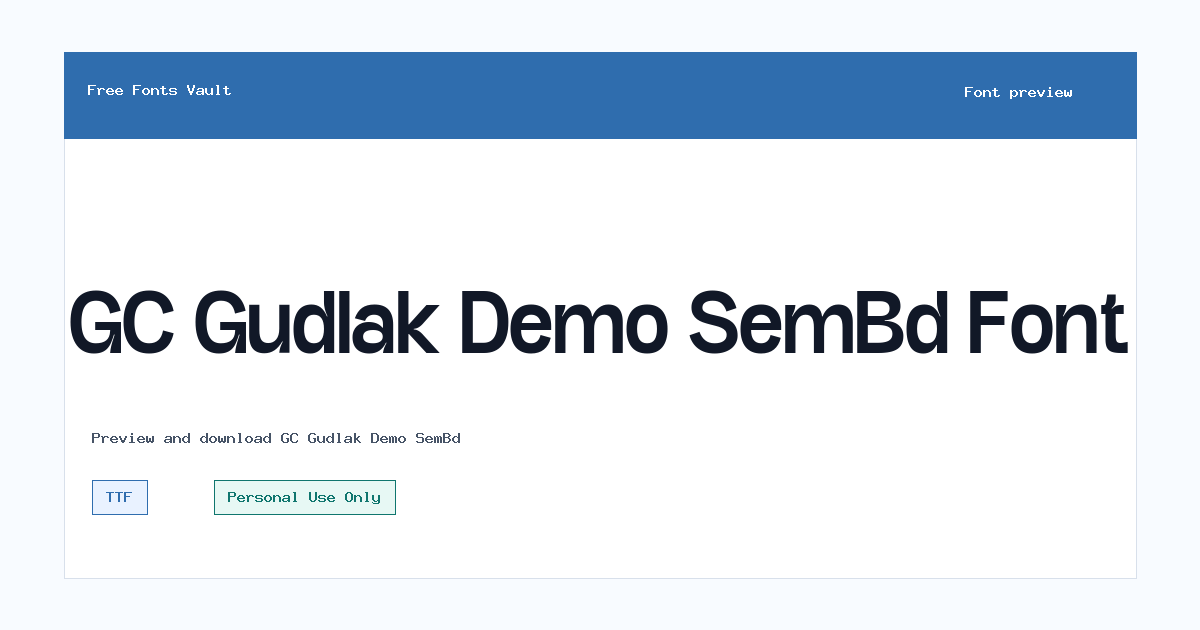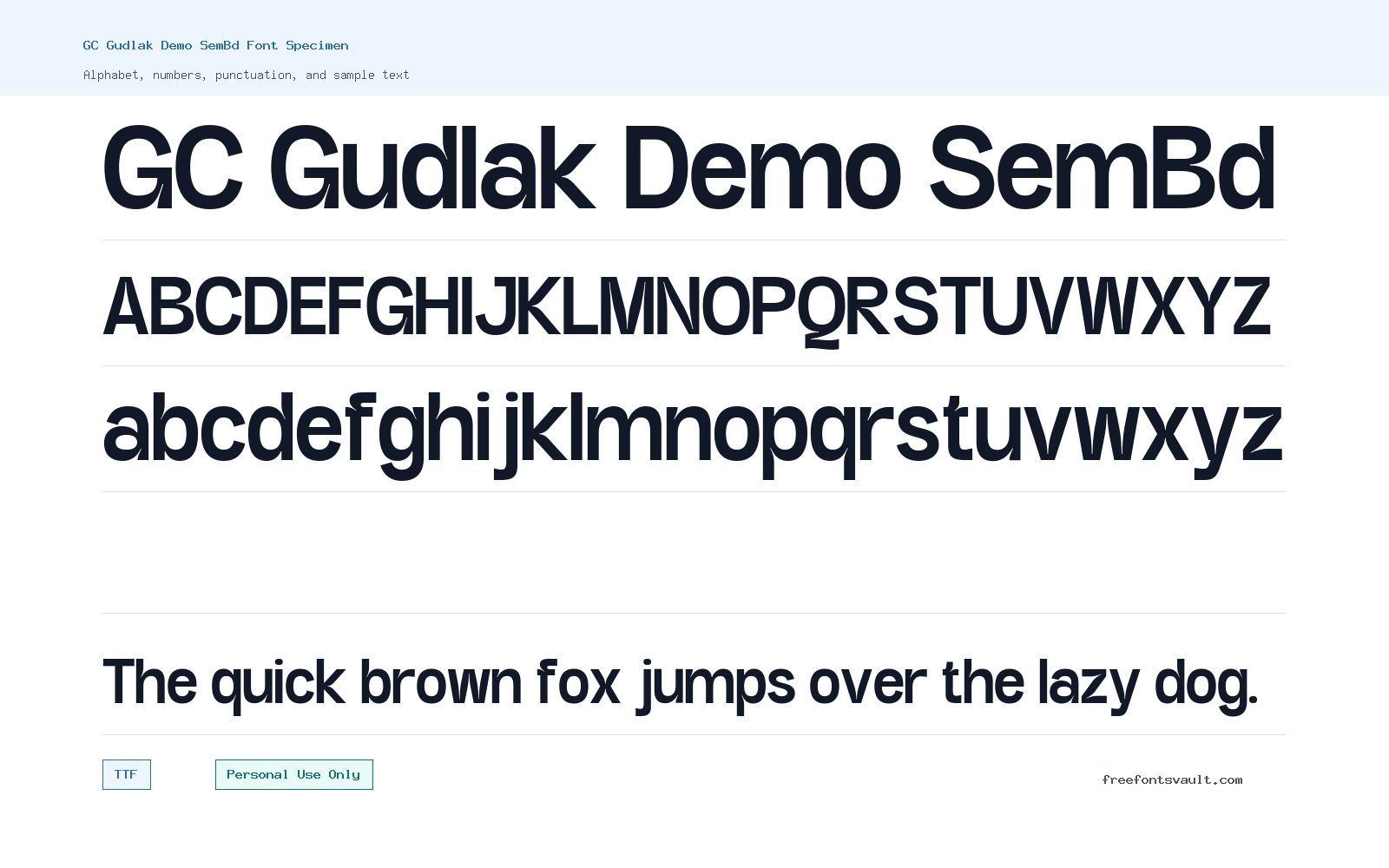
GC Gudlak Demo SemBd
GC Gudlak Demo SemBd font preview showing the family name
GC Gudlak Demo SemBd Font
GC Gudlak Demo SemBd font specimen showing alphabet, numbers, and sample text
GC Gudlak Demo SemBd font.
GC Gudlak Demo SemBd is a semi-bold demo font from the GC Gudlak sans serif family. It is useful for testing strong, clear text in personal design drafts before deciding whether the full family or a commercial license is needed.
About GC Gudlak Demo SemBd Font
GC Gudlak Demo SemBd is supplied as a TrueType font file with a normal style and a 700 weight, so visitors can expect a heavier text setting than regular-weight body type. The name points to a semi-bold member of the GC Gudlak family, which makes it a practical choice for headings, labels, short display lines, and interface-style text where a firmer weight is helpful. Since this is a demo font, it is best treated as a preview version rather than a complete production-ready family.
• Semi-bold 700 weight for stronger headings, labels, and short text settings.
• Headlines, short titles, badges, UI labels, thumbnails, and social media text previews.
GC Gudlak Demo SemBd is credited to Hanif Dwi Sulistyo of Glyphonic.